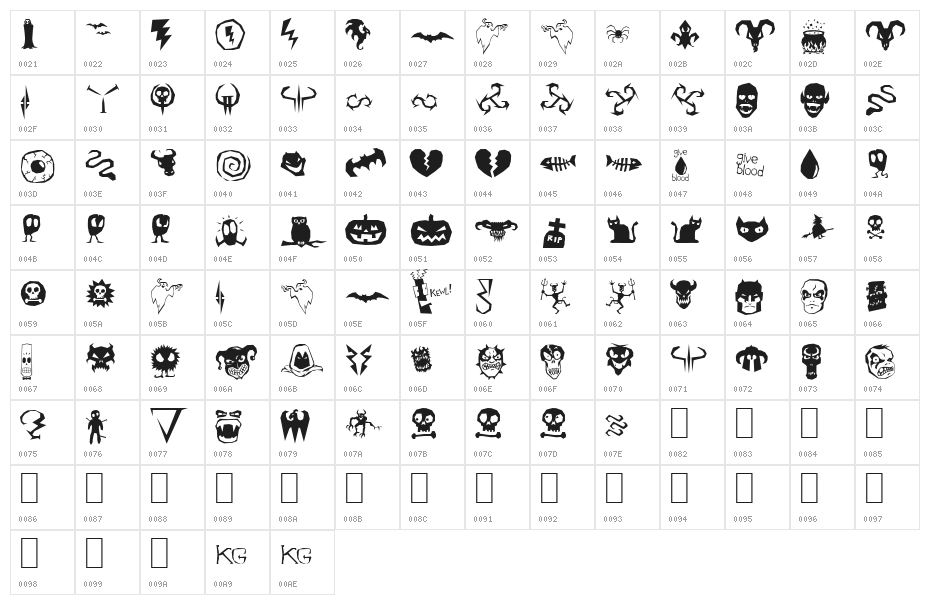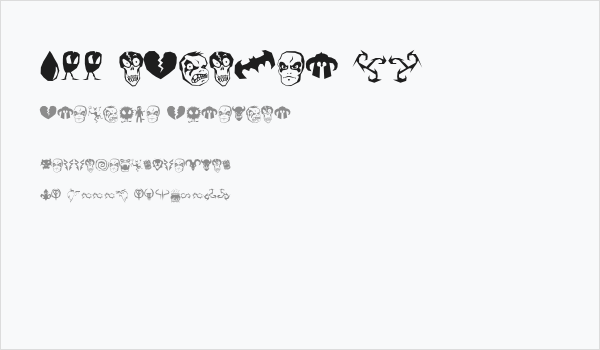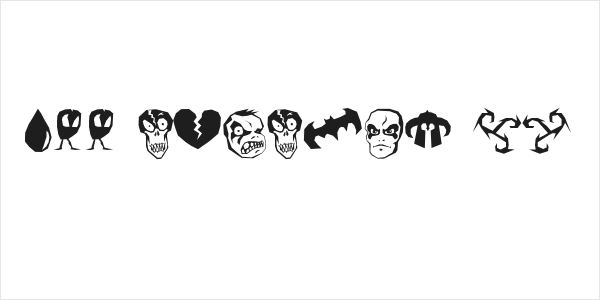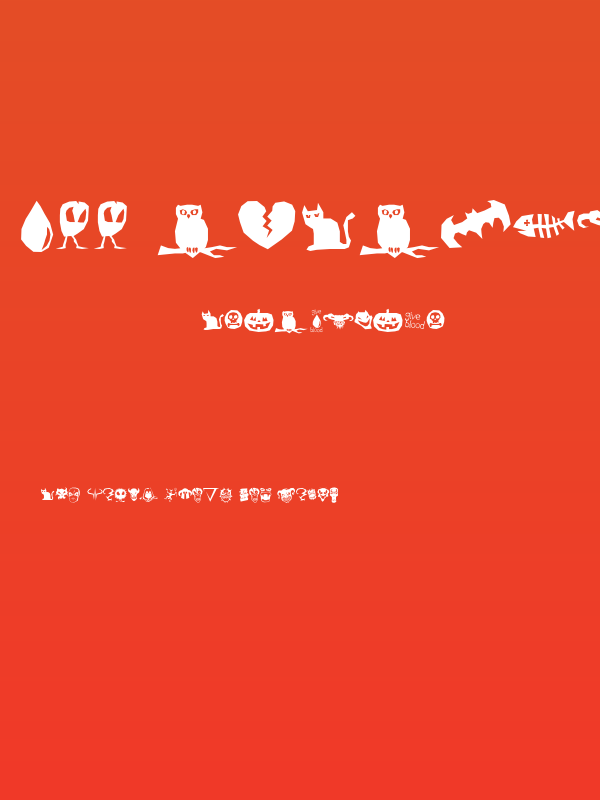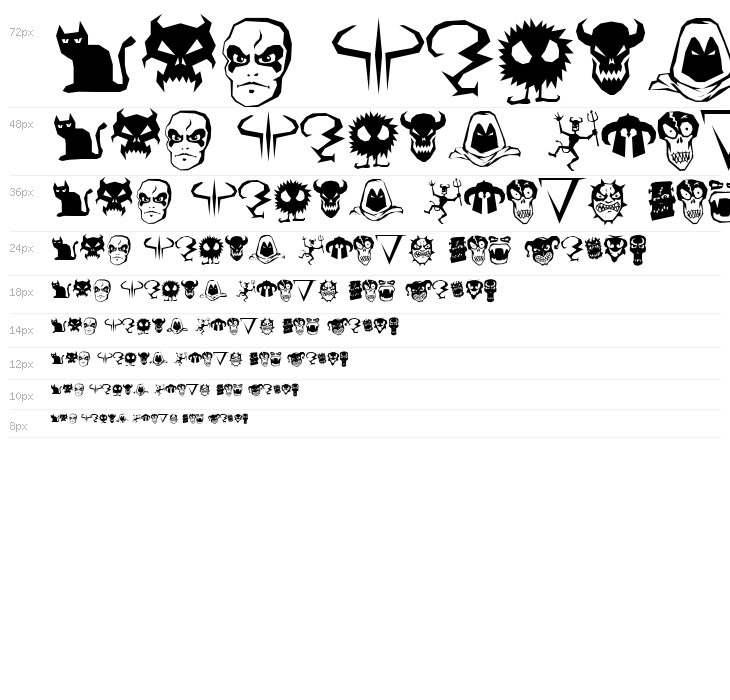
ILL oCtoBer 98 Font
ILL oCtoBer 98 Description
A highly decorative and thematic font composed entirely of Halloween-inspired pictograms, including bats, pumpkins, skulls, monsters, lightning bolts, and other spooky motifs. Each character is a unique illustration rather than a traditional letterform, making it suitable for visual storytelling or thematic design.
| Overall Style | Decorative, Thematic, Playful |
| Use Case | Headlines, Posters, Themed Graphics |
| Proposed Projects | Halloween party invitations, event posters, themed merchandise, children's activity sheets, seasonal social media graphics. |